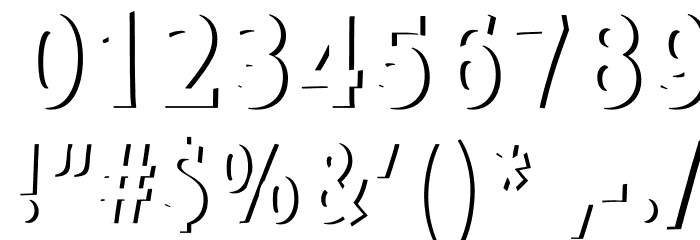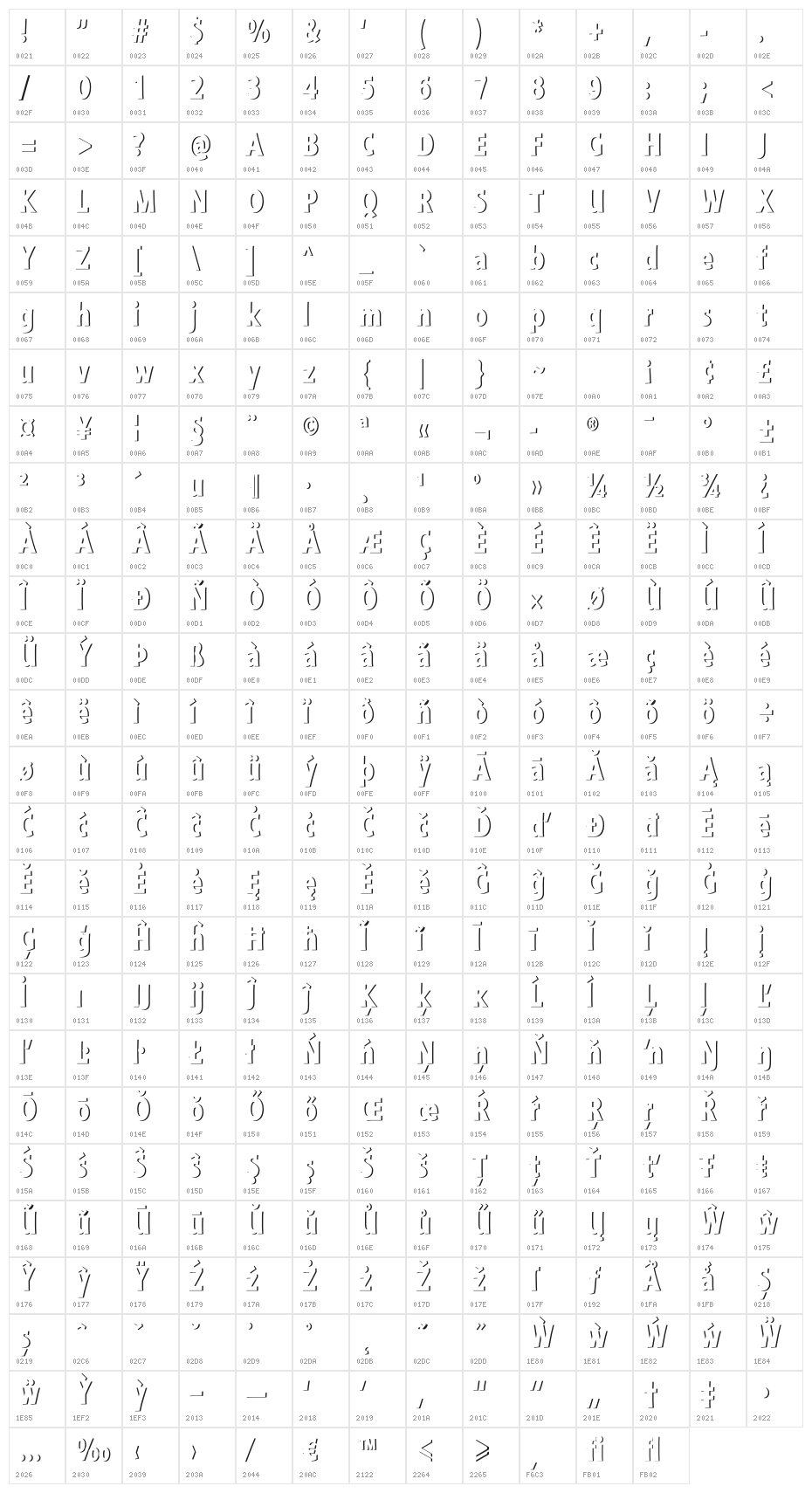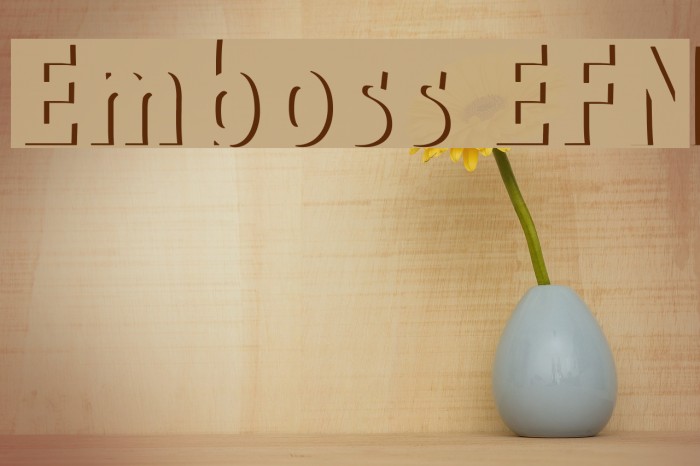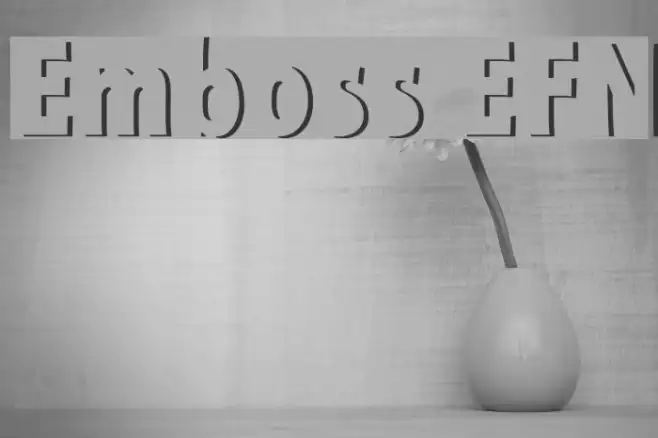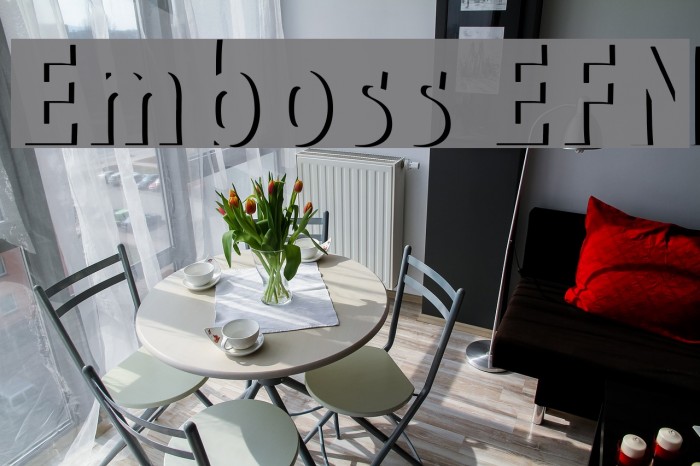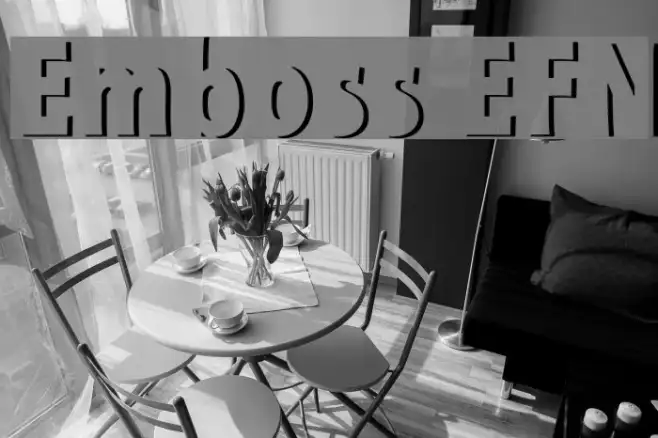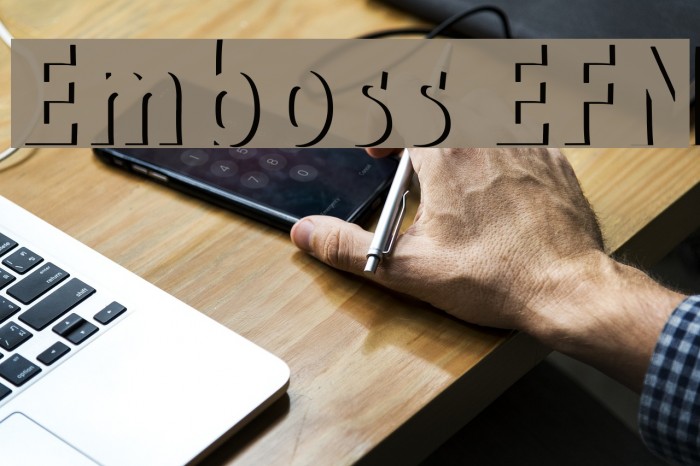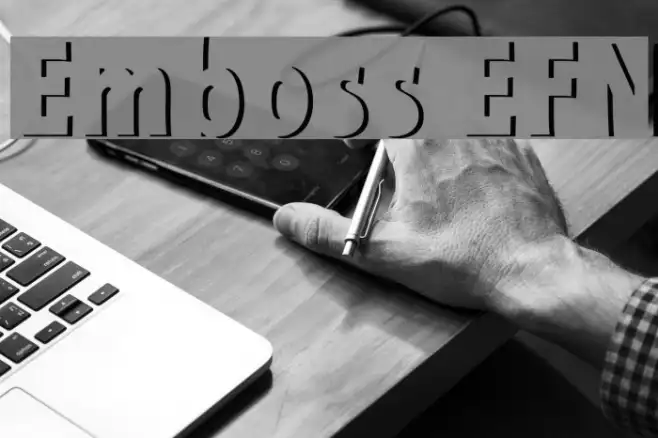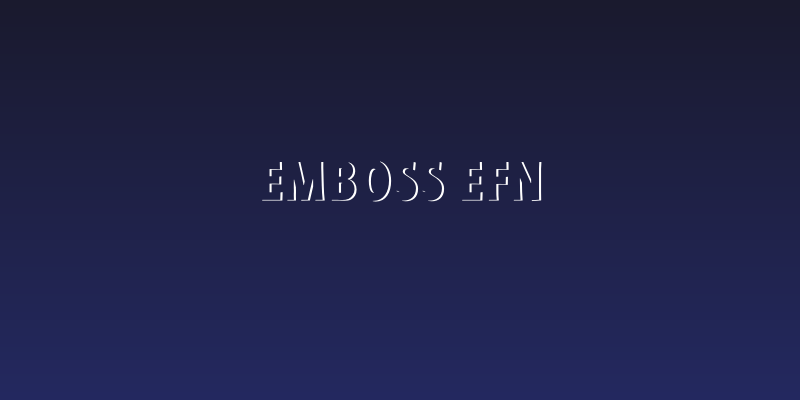
Emboss EFN Font
Emboss EFN Description
This font features a bold, three-dimensional appearance with an embossed effect that creates a sense of depth and texture. The characters are well-defined with a consistent stroke width, giving them a strong and impactful presence. The uppercase and lowercase letters maintain a uniform style, while the numerals and special characters complement the overall design. The font's unique shadowing effect enhances its visual appeal, making it suitable for eye-catching designs. Its structured form and clean lines contribute to a modern yet classic aesthetic, making it versatile for various applications.
Proposed ProjectsIdeal for logos, posters, headlines, and any design requiring a striking, dimensional look.